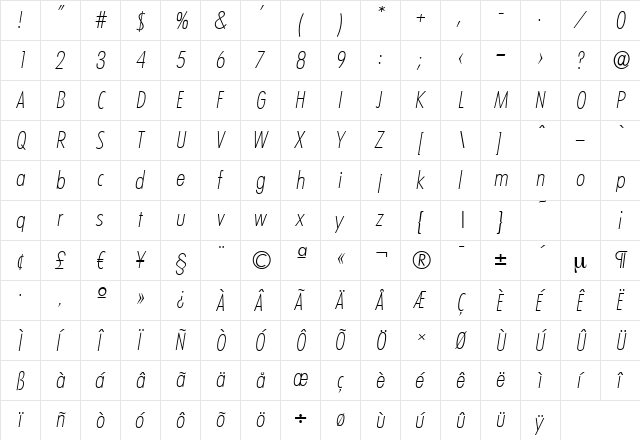
LimerickCdSerial-Xlight Italic Font Preview
Design Context for LimerickCdSerial-Xlight Typeface
LimerickCdSerial-Xlight offers clean, dependable letterforms without strong stylistic allegiance, making it a practical choice for designers who need flexibility. Its italic angle brings a sense of urgency and motion to the letterforms. The delicate stroke weight brings airiness and refinement to layouts.
Pro Tip: Use LimerickCdSerial-Xlight for emphasis, pull quotes, and subheadings where its slanted energy can add rhythm to the layout.